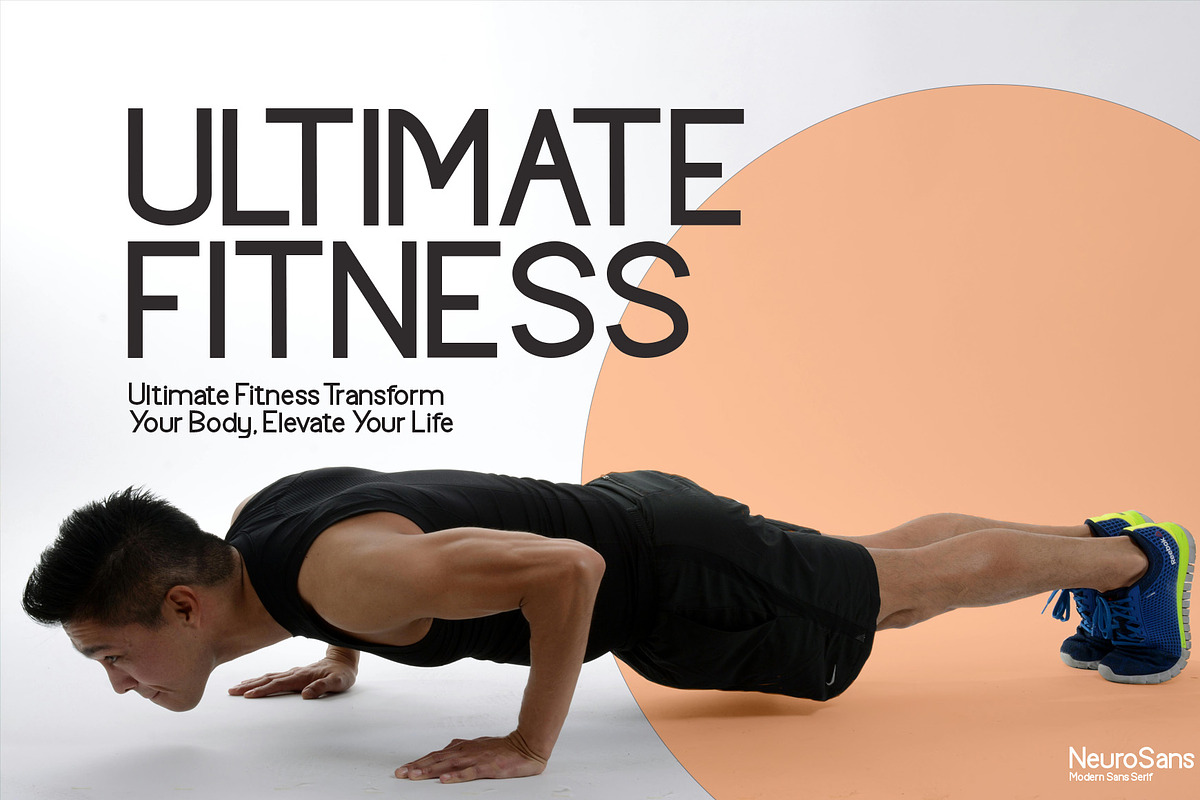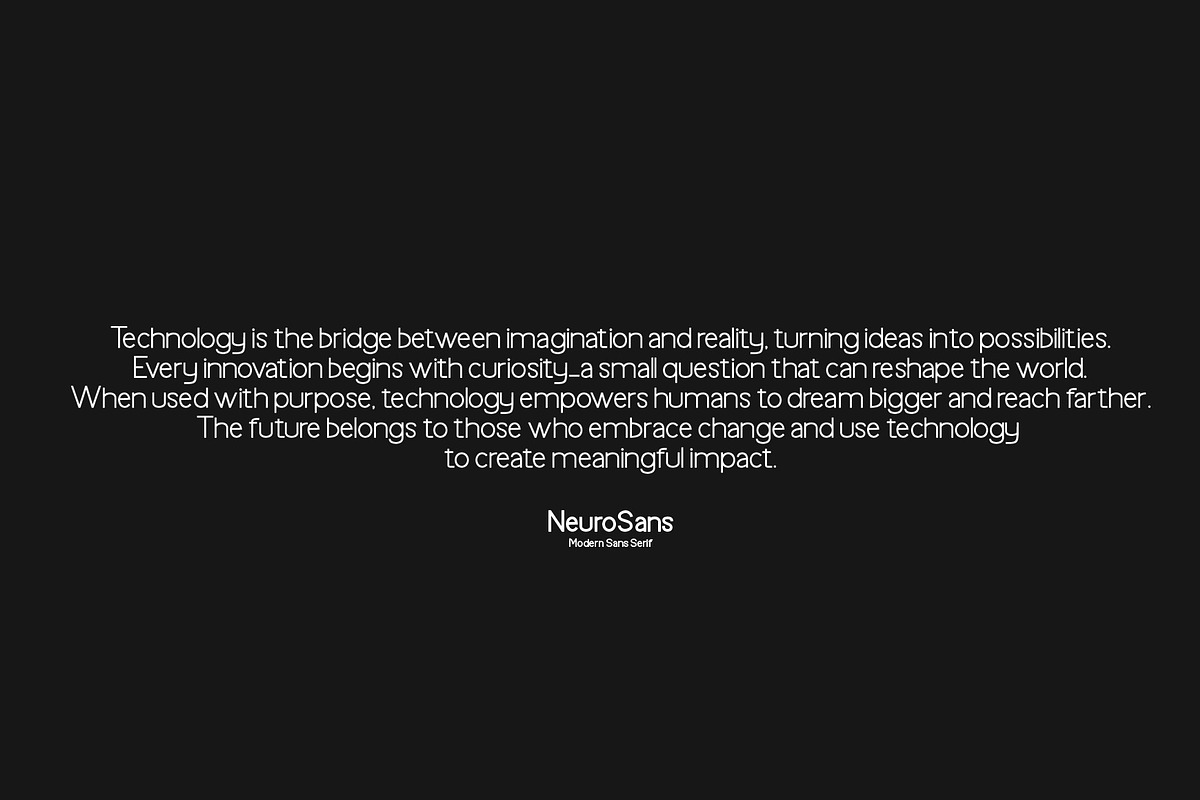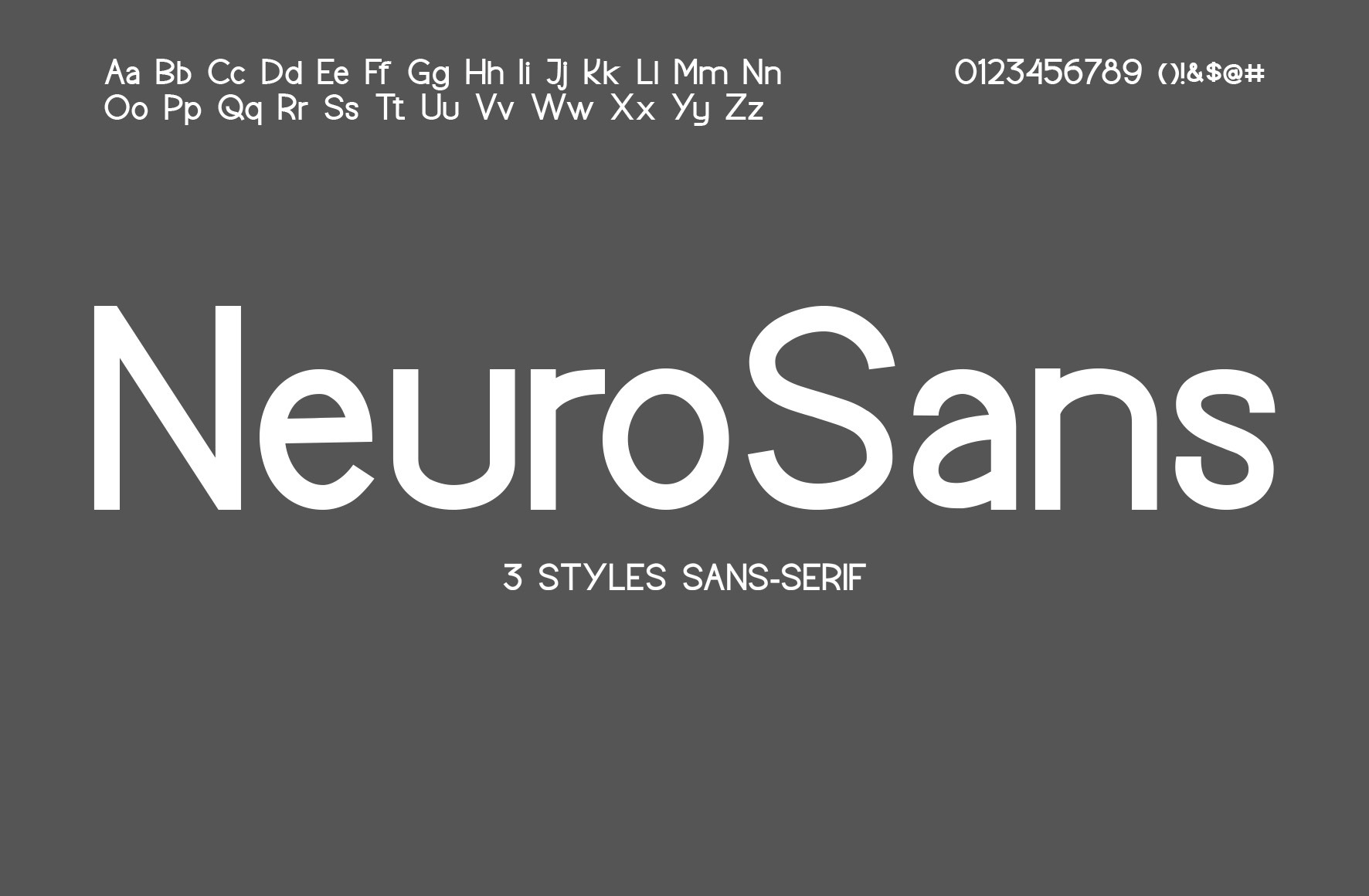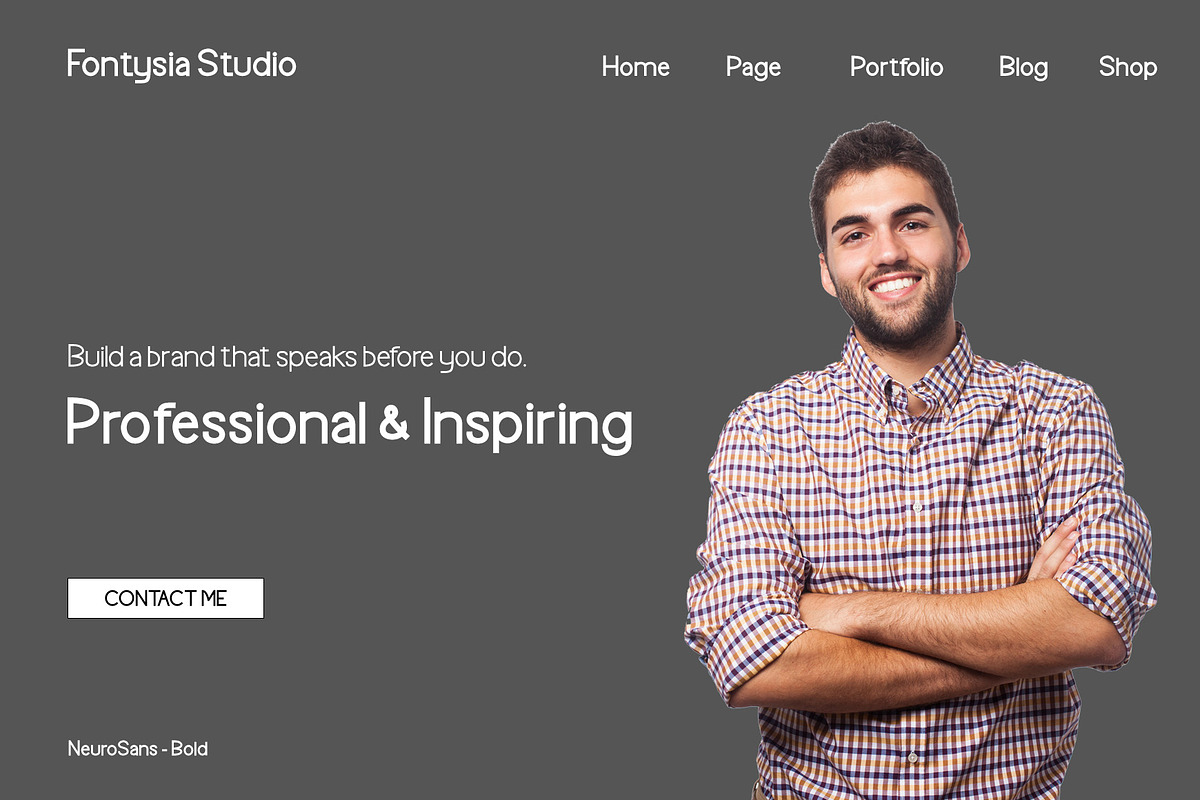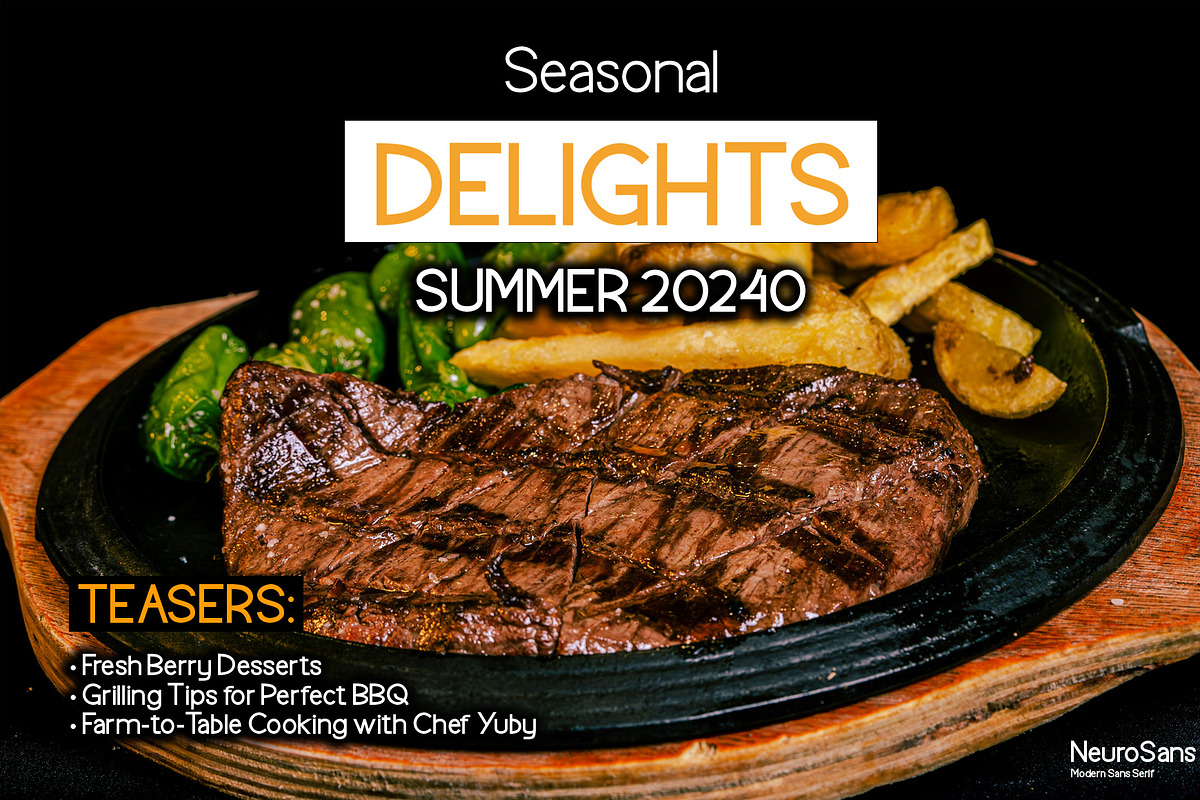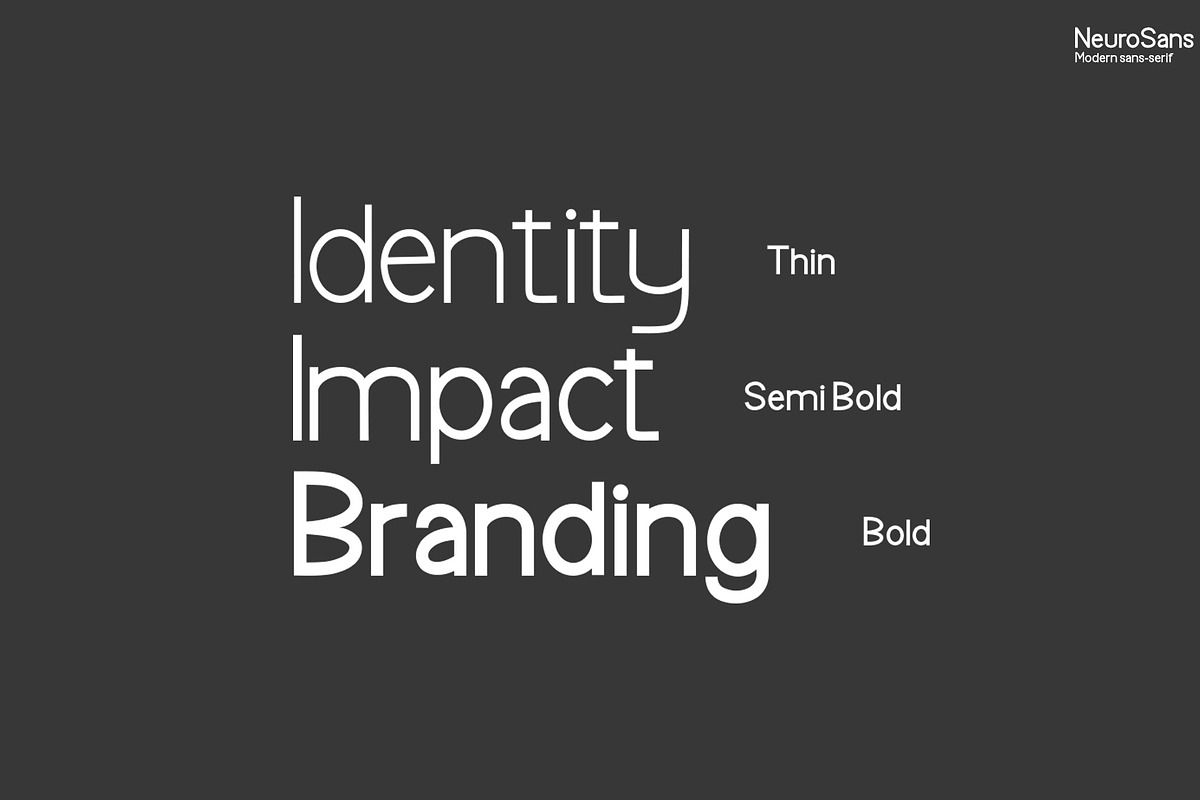
NeuroSans - Sans Serif Family Font
NeuroSans Font is a vintage-modern font with 3 styles and multilingual supports. With its blend of modernity, versatility, and timeless elegance, it emerges as a compelling choice for designers seeking a refined typographic solution that resonates with both tradition and innovation.
Suitable For:
- Brand identity and logo design
- Corporate and business presentations
- Web and app interfaces
- Editorial and magazine layouts
- Product packaging and labels
- Startup and tech branding
- Marketing materials and advertising campaigns
- Social media graphics and visual content
- Clean typographic posters and signage